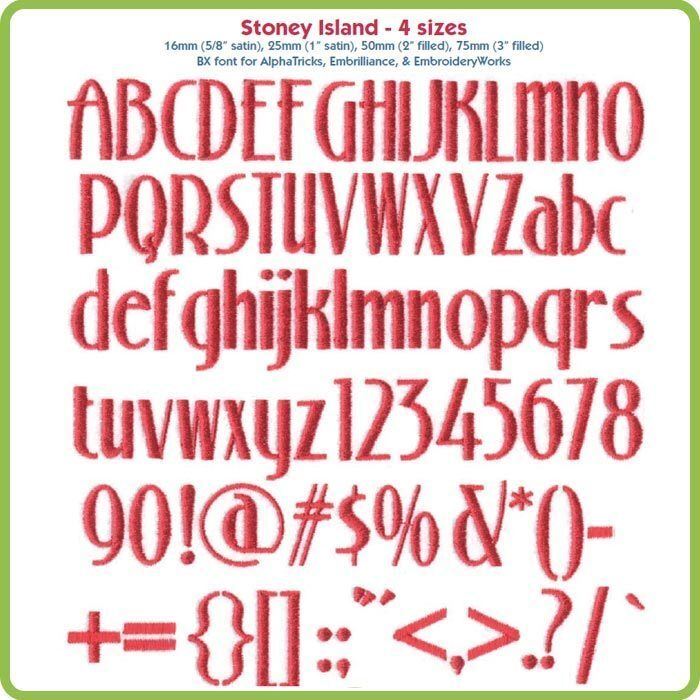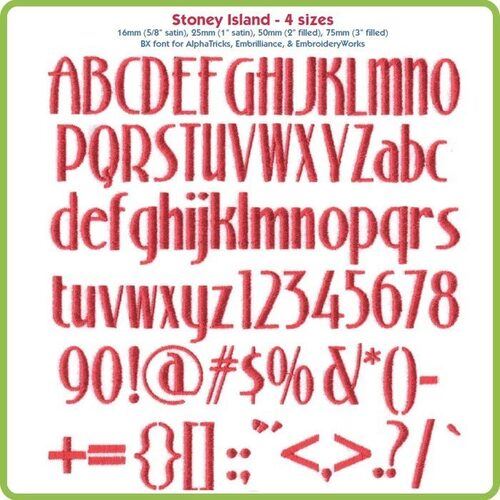
Stoney Island BX fonts in 4 sizes: 15mm, 25mm, 50mm and 75mm
Collection Notes: Stoney Island 75mm (3") is a condensed sans serif machine embroidery font that includes A-Z, a-z, 0-9 and the following punctuation: ~`!@#$%^&*()-+={}[]:;"'<>,.?/ in one size only (91 total characters per size). Fillstitch.